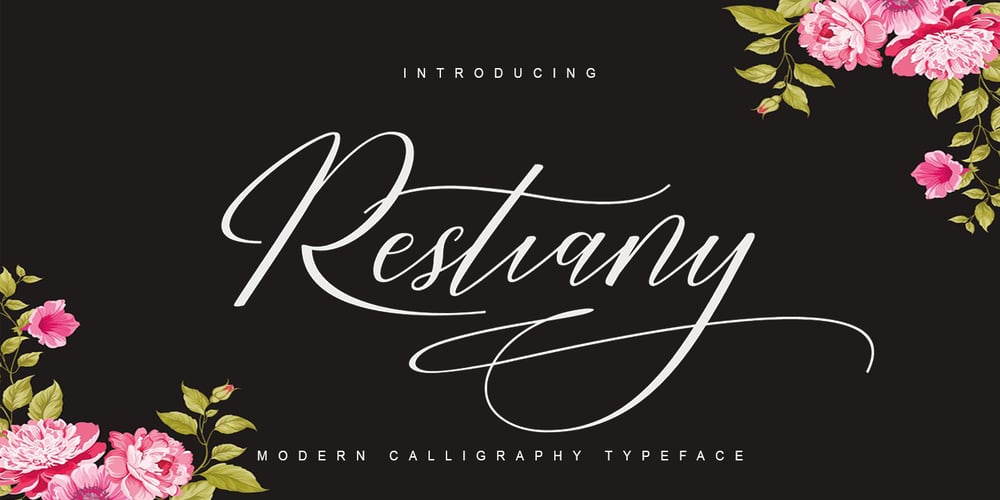
Restiany Font Family was designed by Kurniadi Saputra and published by Cooldesignlab. Restiany contains 1 styles and family package options. Restiany Script is a beautiful and attractive calligraphy handwriting font. You can see from scratches that give a challenging and modern style. You can use this font in your various design products. This font is casual and elegant. Ideal for wedding invitations, signage, headlines, logos, packaging, product branding, etc. Including OpenType Stylistic alternates, ligatures and international language support.To activate the OpenType Stylistic alternative, you need a program that supports OpenType features such as Adobe Illustrator CS, Adobe Photoshop CC (With Flying Machine Panel), Adobe Indesign & CorelDraw X6-X7, Microsoft Word 2010 or newer versions.Also supported by PUA encoded. Just copy and paste alternative characters using Character Map (Windows), Nexus Font (Windows), Font Book (Mac) or software programs like PopChar (for Windows and Mac)Thank you for your purchase!